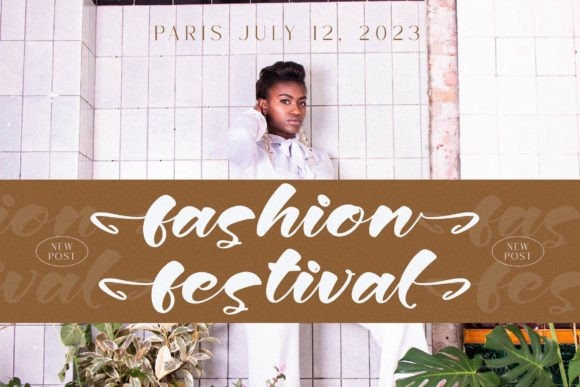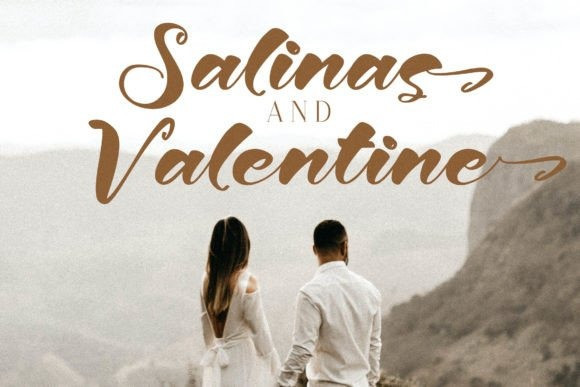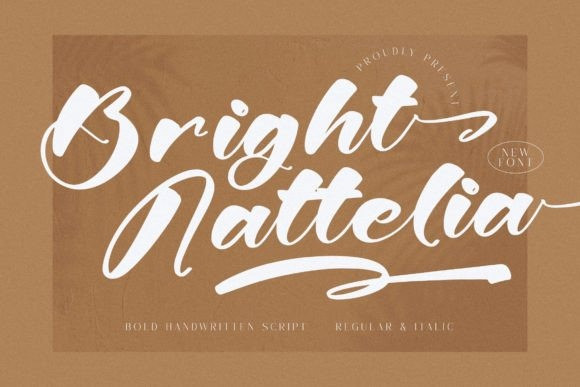
Bright Nattelia Font
Bright Nattelia Font is an elegajt handwritten script, suitable for any projects such as logos, branding projects, homeware designs, product packaging, mugs, quotes, posters, shopping bags, t-shirts, book covers, name card, invitation cards, greeting cards, label, photography, watermarks, special events, and so much more!